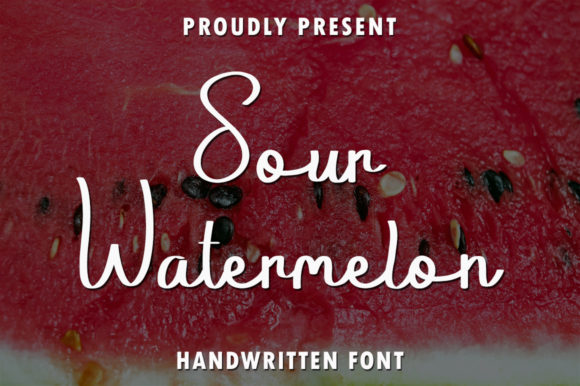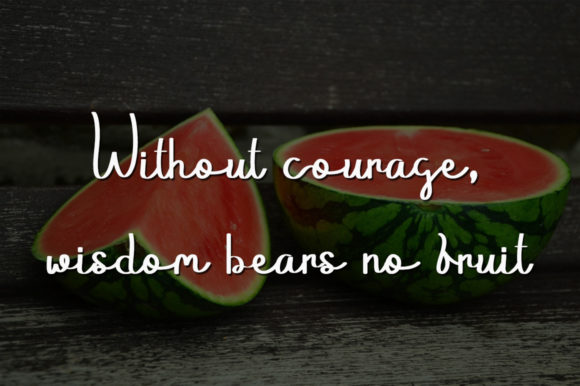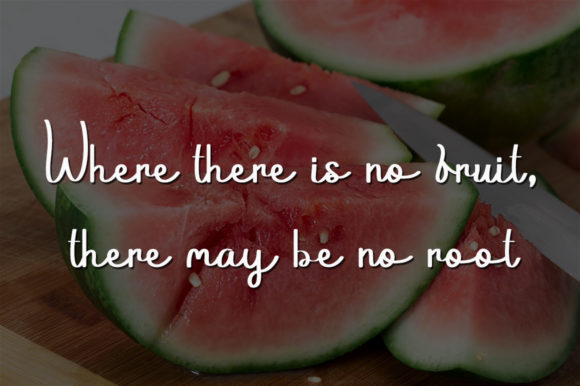
About Sour Watermelon Font
Sour Watermelon sounds like a classic handwritten font that offers versatility and charm to a variety of crafty ideas. With its handwritten style and timeless appeal, Sour Watermelon can elevate your designs, whether you’re working on letterheads, titles, or stationery.
The versatility of Sour Watermelon lies in its ability to adapt to different design contexts. Its classic handwritten look adds a personal and authentic touch to your projects, making them feel more warm and inviting. Whether you’re creating professional letterheads or crafting eye-catching titles, Sour Watermelon can bring a sense of uniqueness and character to your designs.
The beauty of Sour Watermelon is its ability to blend seamlessly with various design styles. Whether your project requires a modern or traditional aesthetic, this font can effortlessly adapt to suit your needs. Its timeless appeal ensures that it remains relevant and attractive, even as design trends evolve over time.
Sour Watermelon’s handwritten nature adds a touch of craftsmanship and individuality to your designs. It captures the essence of hand-drawn lettering, complete with the subtle imperfections and variations that give it a unique charm. This adds a personal and human touch to your designs, making them feel more engaging and relatable.
With Sour Watermelon, you have the opportunity to create visually appealing and memorable designs. Whether you’re designing stationery, invitations, or other crafty projects, this font can bring a delightful and playful element to your creations. Its classic handwritten style can evoke a sense of nostalgia and warmth, creating a positive and welcoming atmosphere.
In summary, Sour Watermelon is a classic handwritten font that offers versatility and charm to a range of crafty ideas. Its timeless appeal, adaptability, and handwritten nature make it an excellent choice for letterheads, titles, stationery, and more. Whether you’re aiming for a modern or traditional aesthetic, Sour Watermelon can add a touch of authenticity and character to your designs, making them stand out with their unique charm.